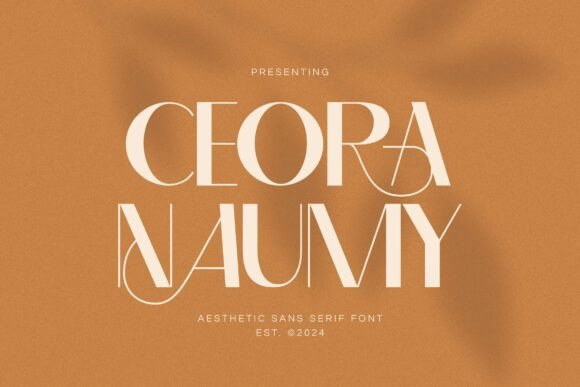
Introducing Ceora Naumy Font: The Epitome of Modern Luxury
In the realm of typography, the quest for the perfect font is a never-ending journey. Designers and brands are constantly on the lookout for typefaces that not only convey their message but also elevate their visual identity. Ceora Naumy Font is a game-changing aesthetic sans serif typeface that has taken the design world by storm. This cutting-edge font seamlessly incorporates elements from serif typefaces, creating a harmonious blend of modernity and timeless elegance.
The Unique Characteristics of Ceora Naumy
Ceora Naumy is characterized by its flowing curves and refined serifs, which evoke a sense of timeless luxury. The font’s clean lines and subtle serif-inspired details create a sophisticated look that stands out in both digital and print media. This unique blend of sans serif and serif elements makes Ceora Naumy a versatile typeface suitable for a wide range of design projects.
The Benefits of Using Ceora Naumy
Ceora Naumy is the perfect choice for projects that demand both beauty and impact. Its elegant appearance makes it an excellent option for designing high-end fashion magazines, crafting memorable wedding invitations, or branding luxury products. With Ceora Naumy, you can elevate your work to new heights and create a lasting impression on your audience.
Applications of Ceora Naumy
Ceora Naumy’s versatility makes it suitable for a wide range of design applications, including:
• High-end fashion magazines
• Wedding invitations and stationery
• Luxury product branding
• Digital and print advertising
• Packaging design
The Timeless Elegance of Ceora Naumy
Ceora Naumy’s design is rooted in the principles of timeless elegance. The font’s classic curves and refined serifs create a sense of sophistication and luxury, making it perfect for designs that require a touch of elegance. Whether you’re designing a luxury brand or creating a wedding invitation, Ceora Naumy is the perfect choice.
Why Choose Ceora Naumy?
With so many fonts available, why choose Ceora Naumy? Here are a few reasons:
• Unique blend of sans serif and serif elements
• Timeless elegance and sophistication
• Versatile and suitable for a wide range of design applications
• Perfect for designs that require a touch of luxury and elegance
In conclusion, Ceora Naumy Font is a game-changing typeface that offers a unique blend of modernity and timeless elegance. Its flowing curves, refined serifs, and subtle serif-inspired details create a sophisticated look that stands out in both digital and print media. With its PUA encoding and extensive character set, Ceora Naumy is the perfect choice for designers and brands looking to elevate their visual identity. Whether you’re designing a high-end fashion magazine, crafting a memorable wedding invitation, or branding a luxury product, Ceora Naumy is the perfect choice.